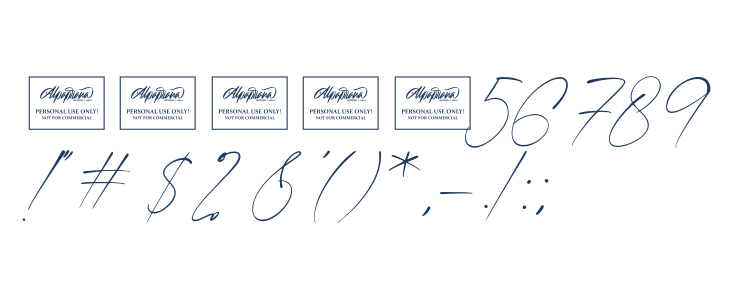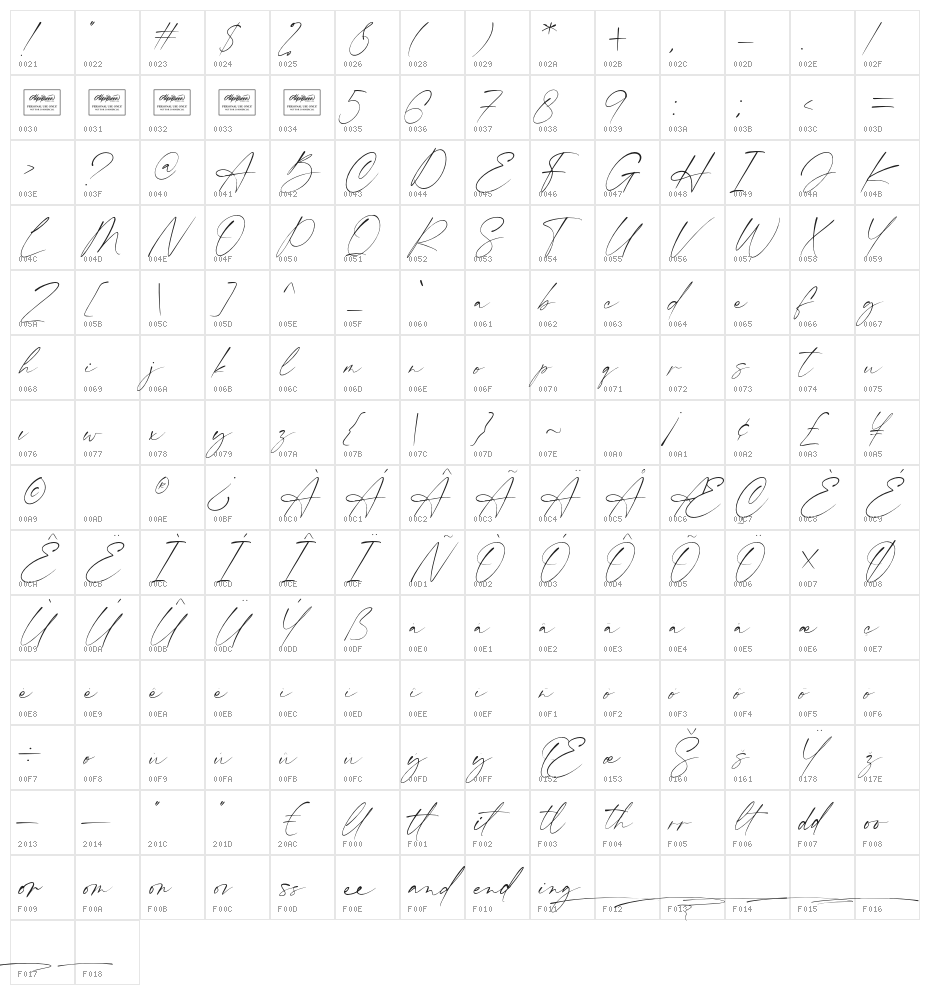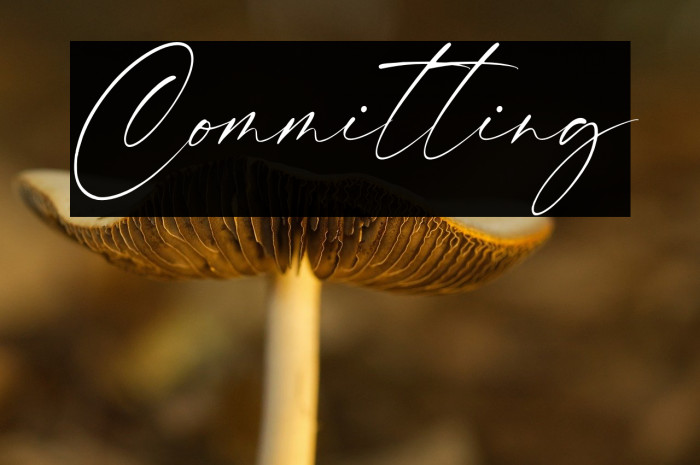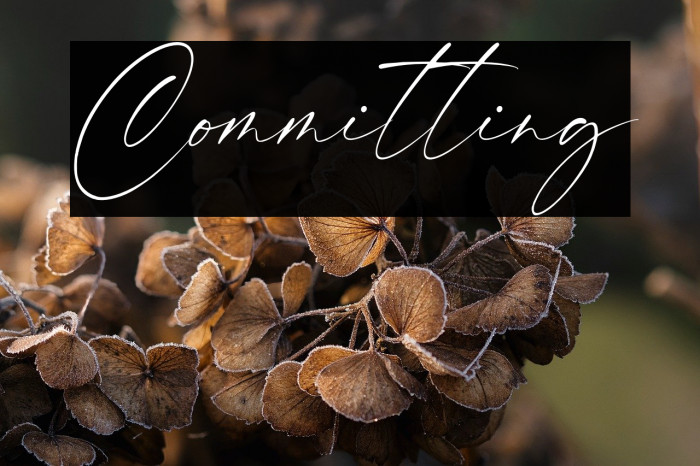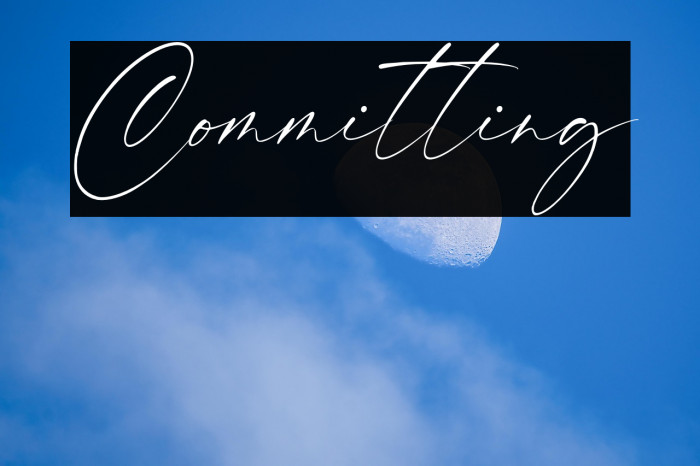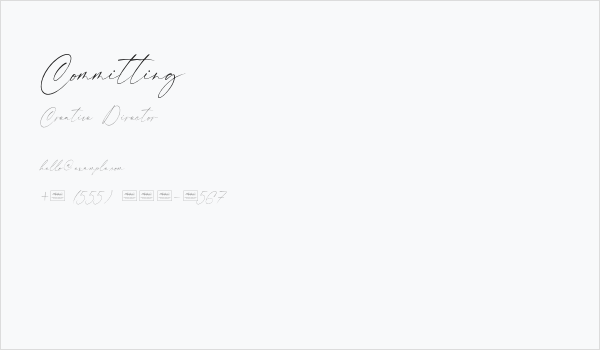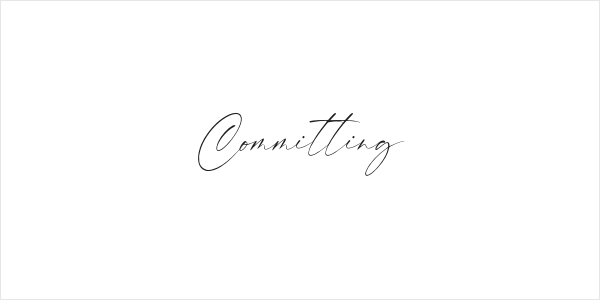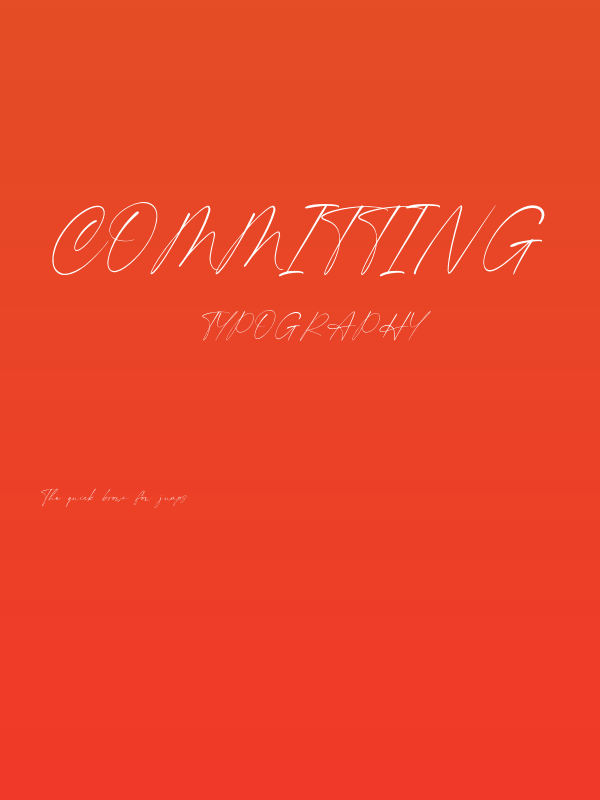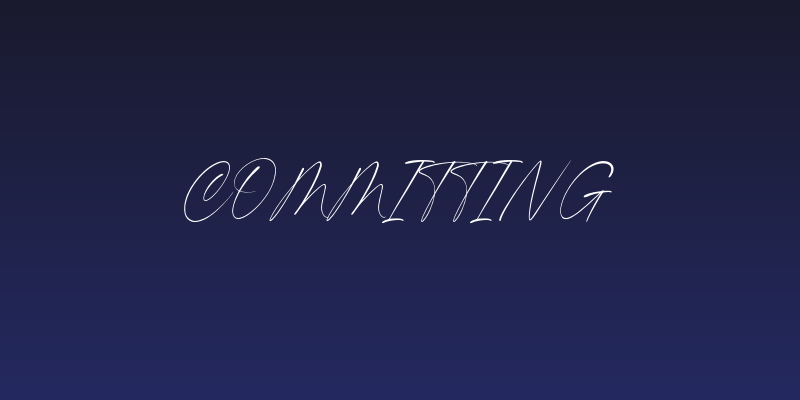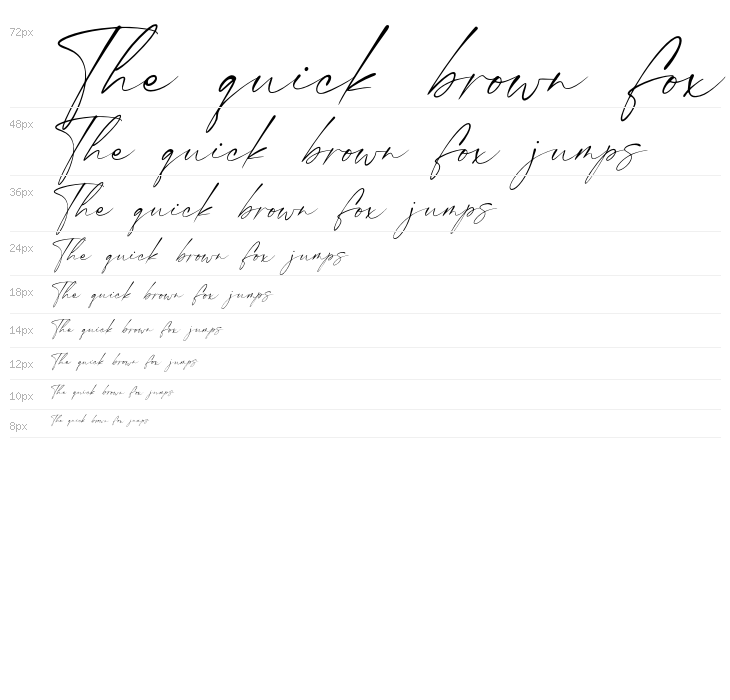
Committing Font
Committing Description
This font features an elegant, flowing script style that mimics the fluidity of natural handwriting. The uppercase letters are tall and slender, with graceful curves and loops that give them a sophisticated appearance. The lowercase letters maintain a consistent style, with elongated ascenders and descenders that add to the font's overall elegance. Numbers and special characters are designed to match the script's fluidity, ensuring a cohesive look across all text. The font's thin strokes and delicate lines make it ideal for projects that require a touch of refinement and elegance.
| Overall Style | Elegant |
| Use Case | Logos, Invitations, Artistic projects |
| Proposed Projects | Ideal for wedding invitations, elegant branding, personal stationery, and artistic projects. |